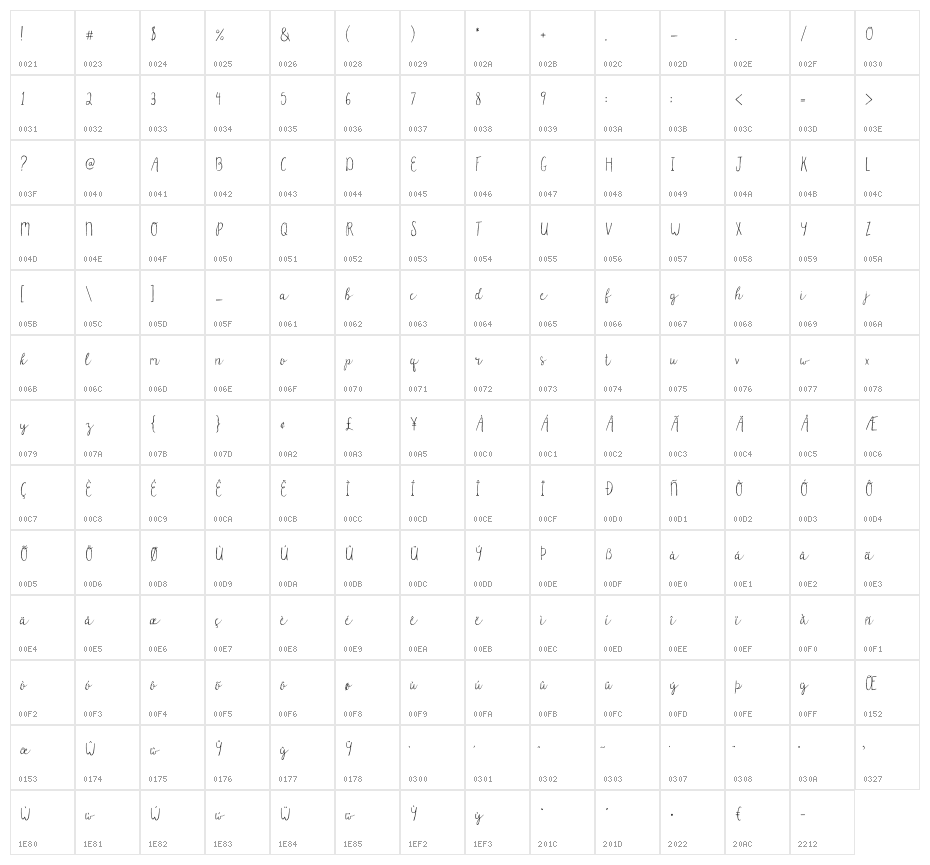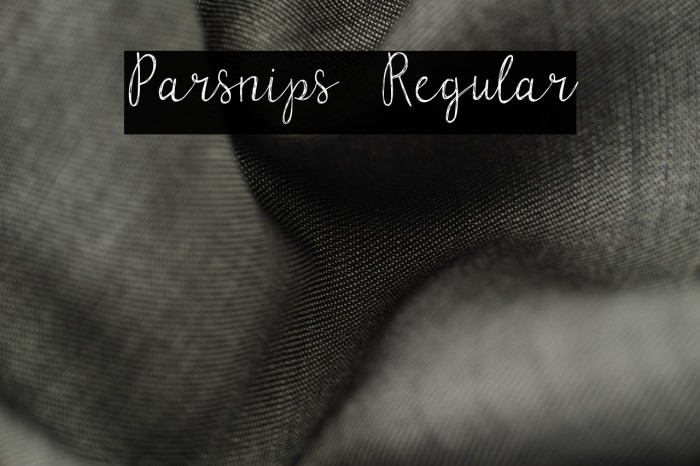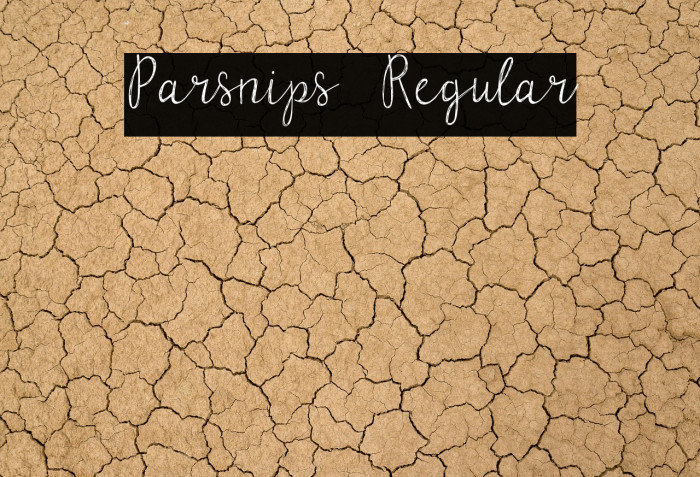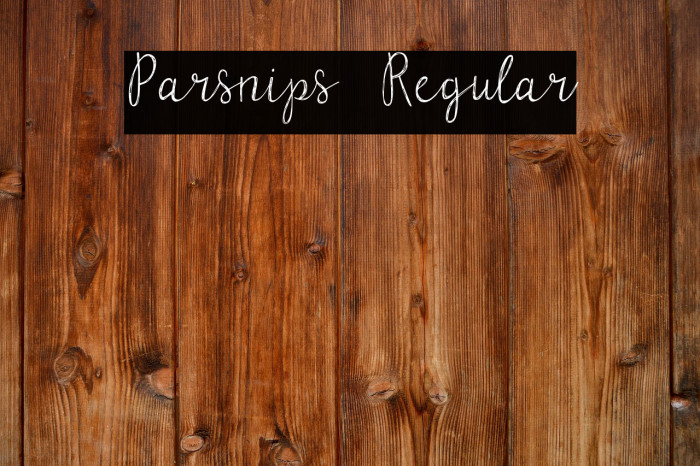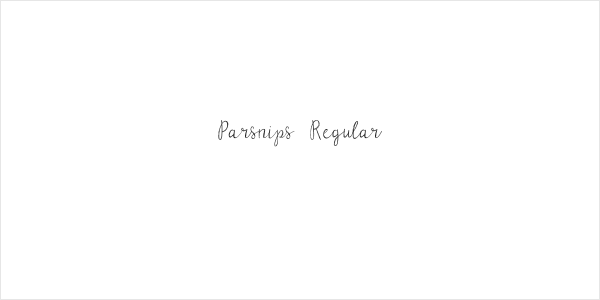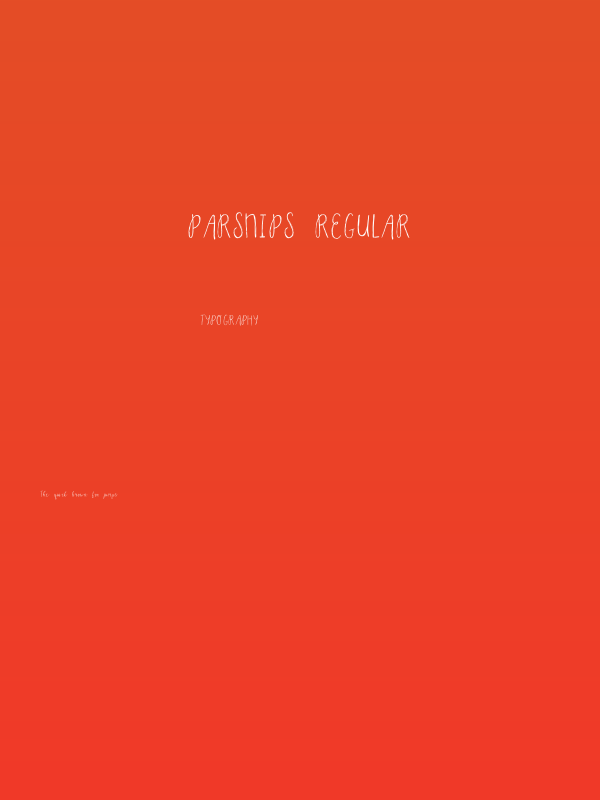
Parsnips Regular Font
Parsnips Regular Description
This font features a charming handwritten style that combines both elegance and playfulness. The uppercase letters are tall and slender, with a slight irregularity that adds a personal touch. The lowercase letters exhibit a smooth, flowing script that enhances the font's casual yet sophisticated appearance. Numbers are consistent with the overall style, maintaining a balance between readability and artistic flair. Special characters are thoughtfully designed to complement the alphabet, ensuring versatility in various applications. The font's unique character is perfect for projects that require a personal, human touch.